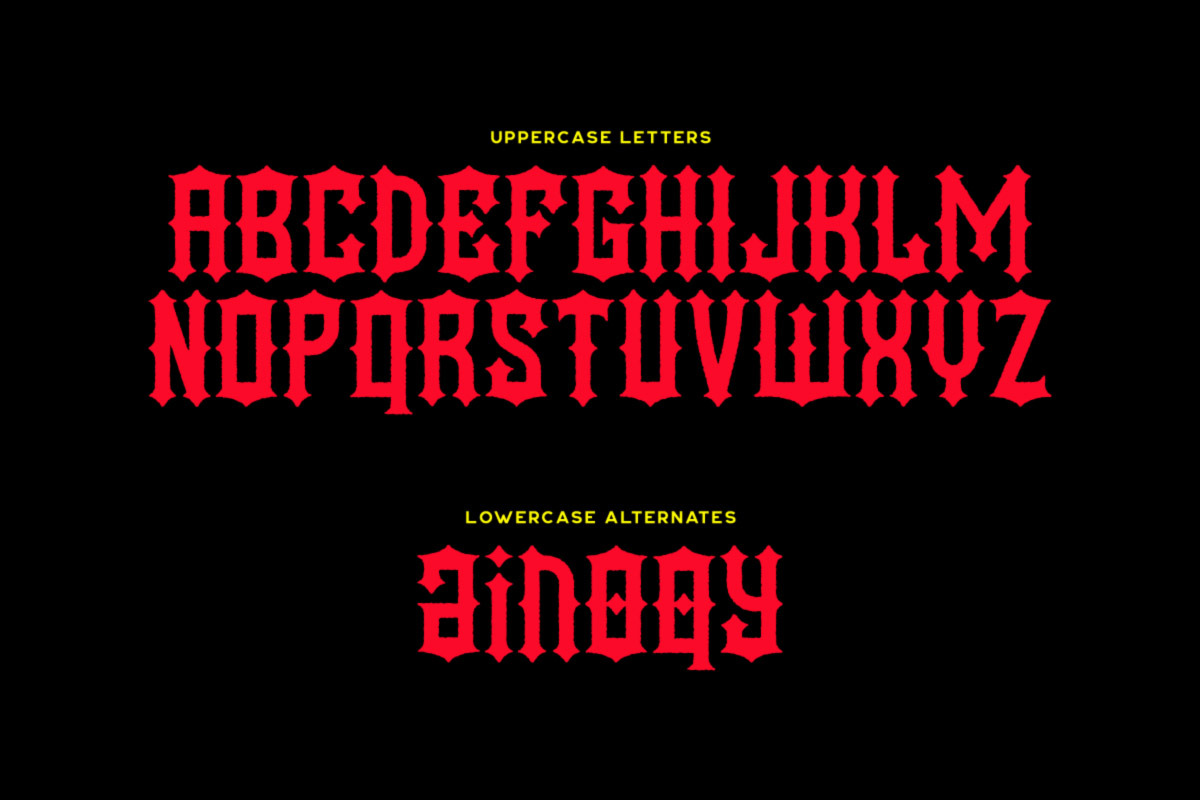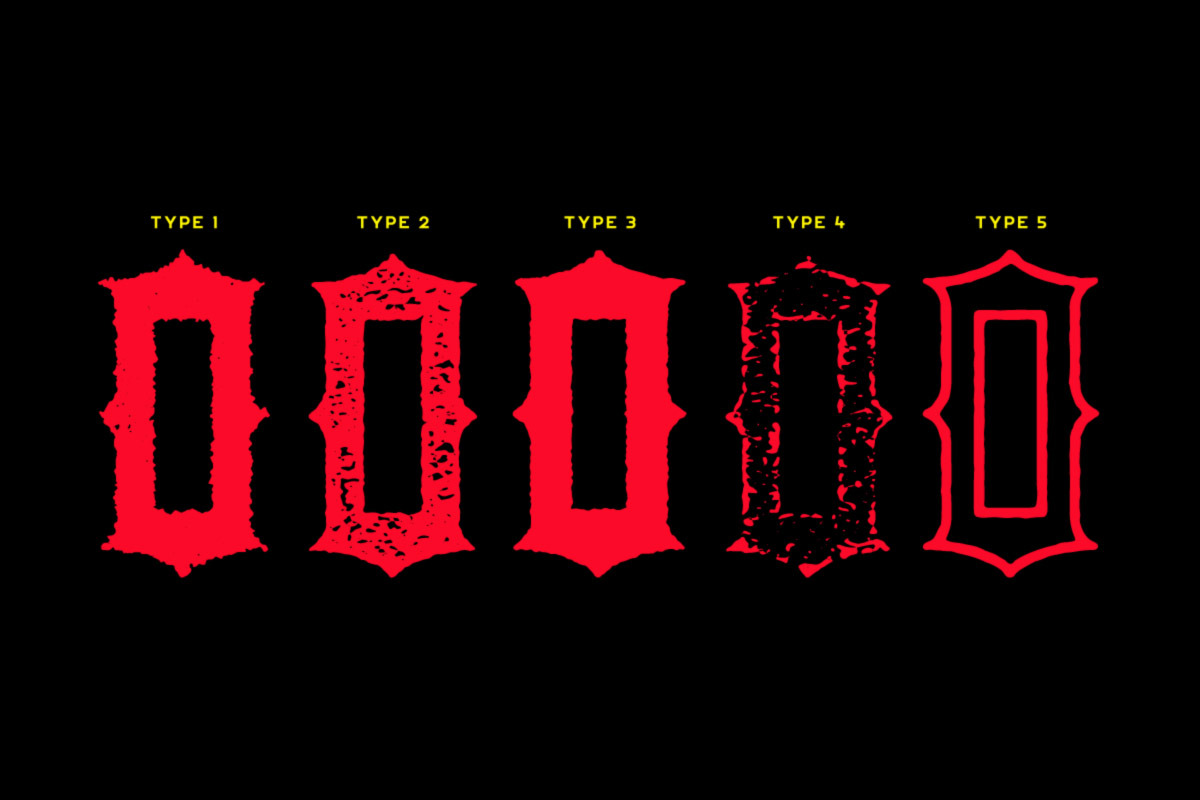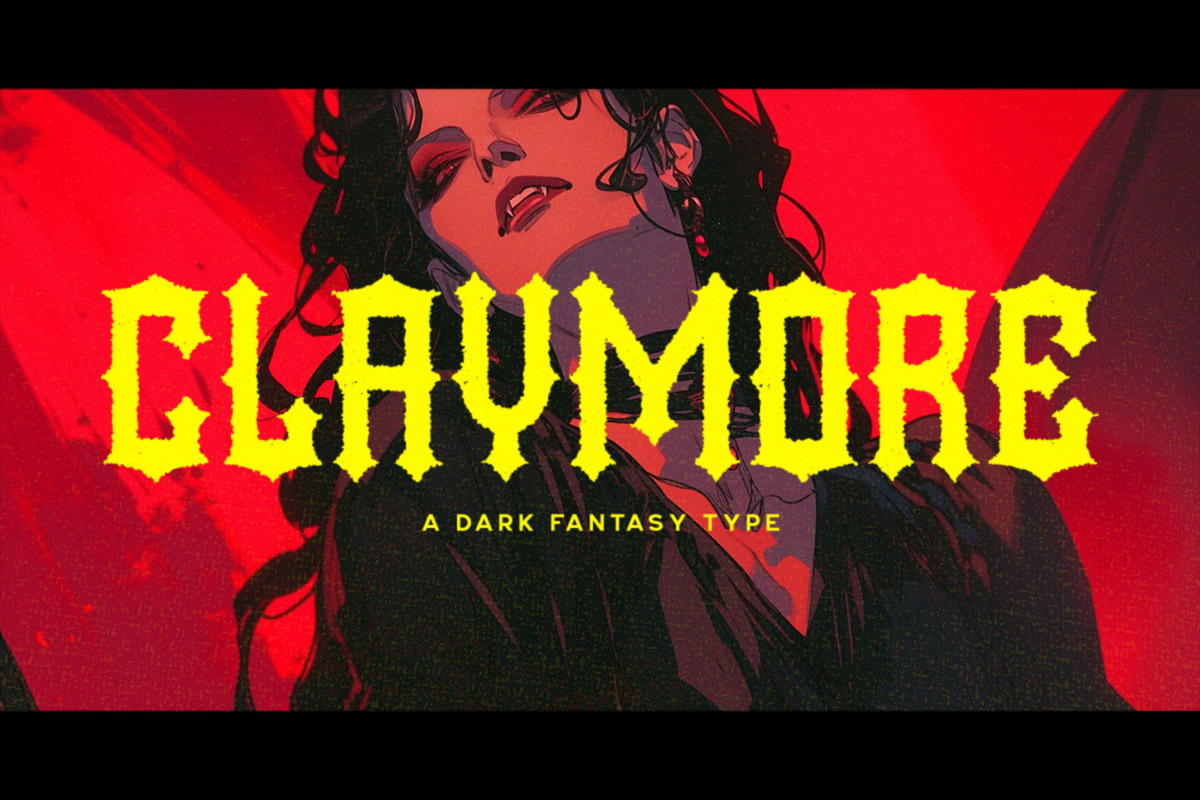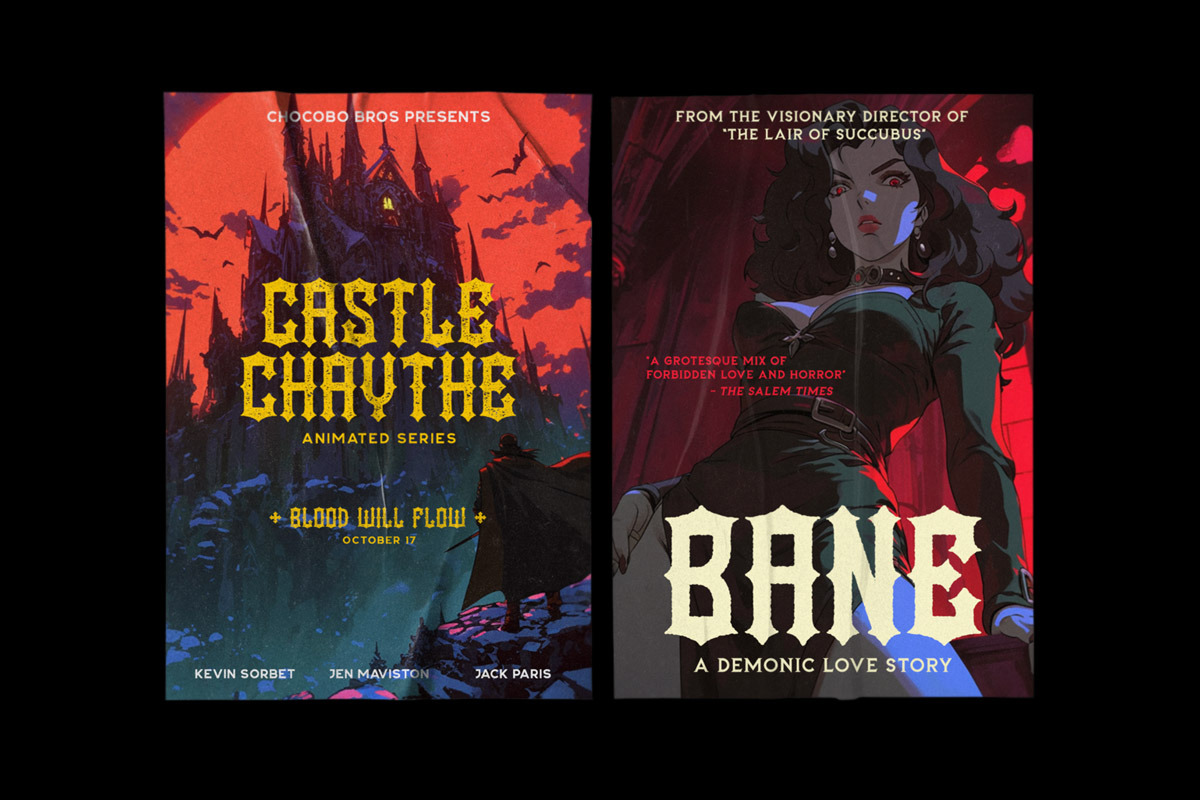
Claymore Typeface
Claymore is a fantasy font with a few alternate letters that can be toggled via Caps Lock. The font features 5 different texture styles, the heavily textured styles might take a while to load.